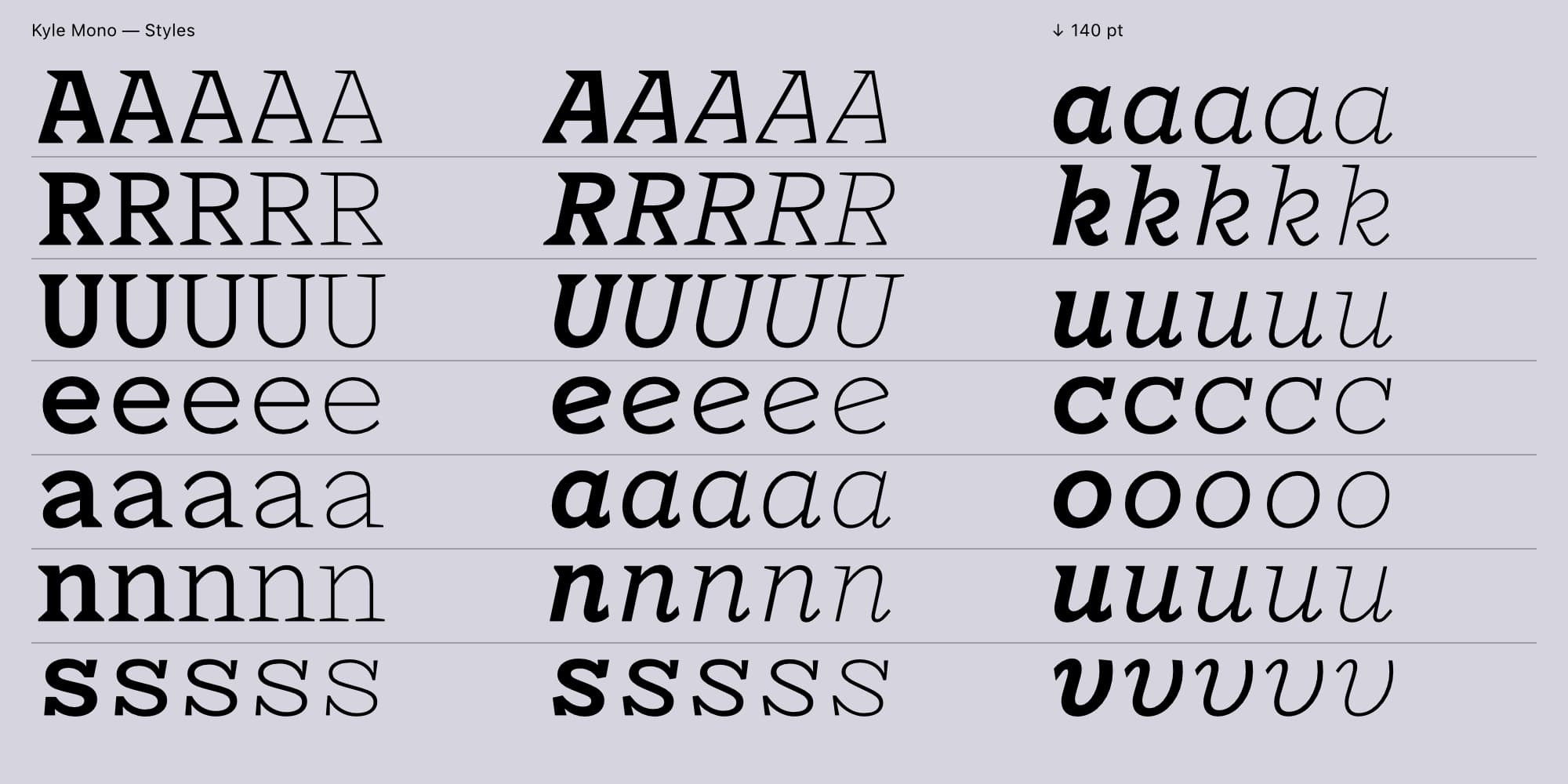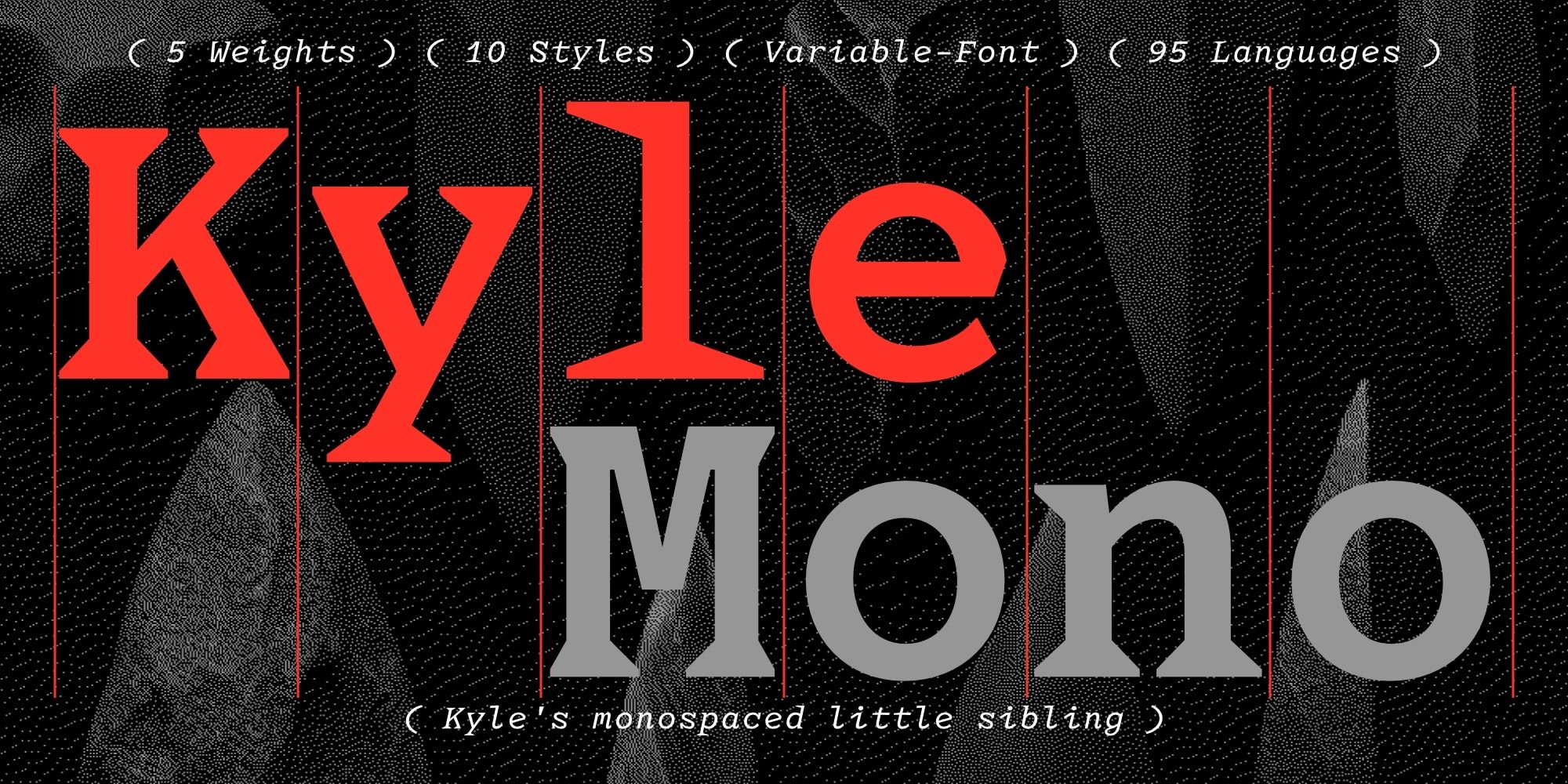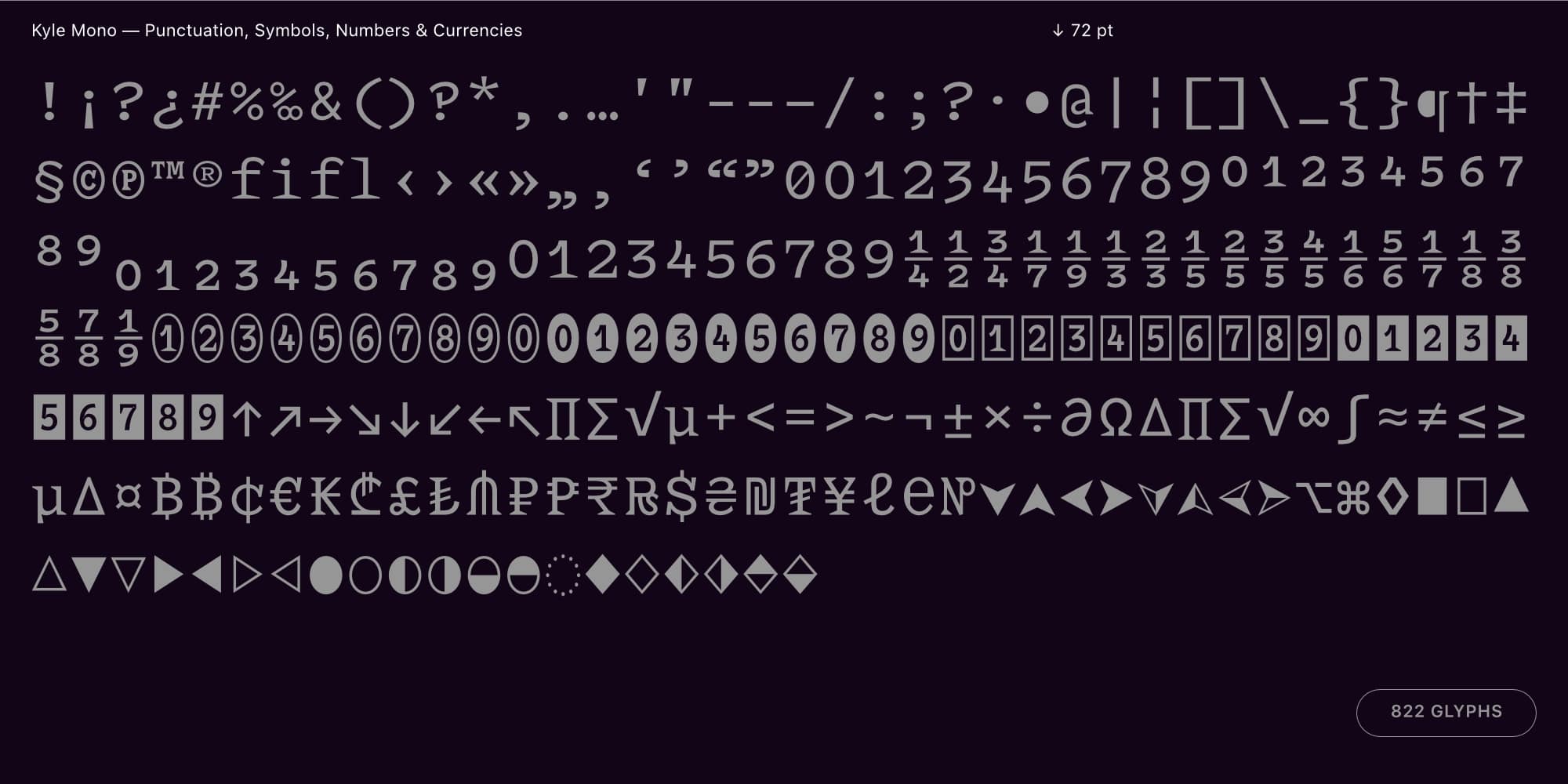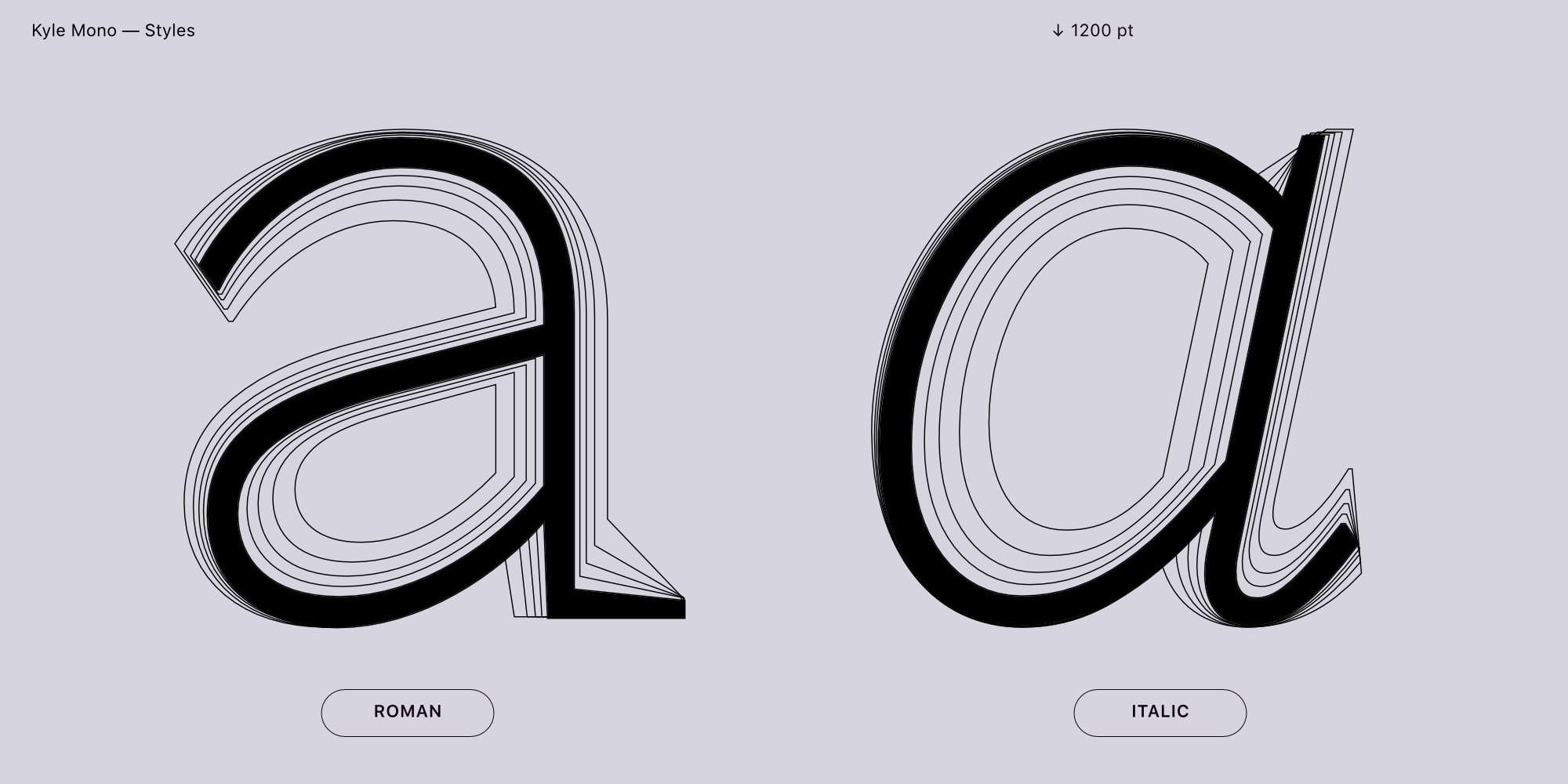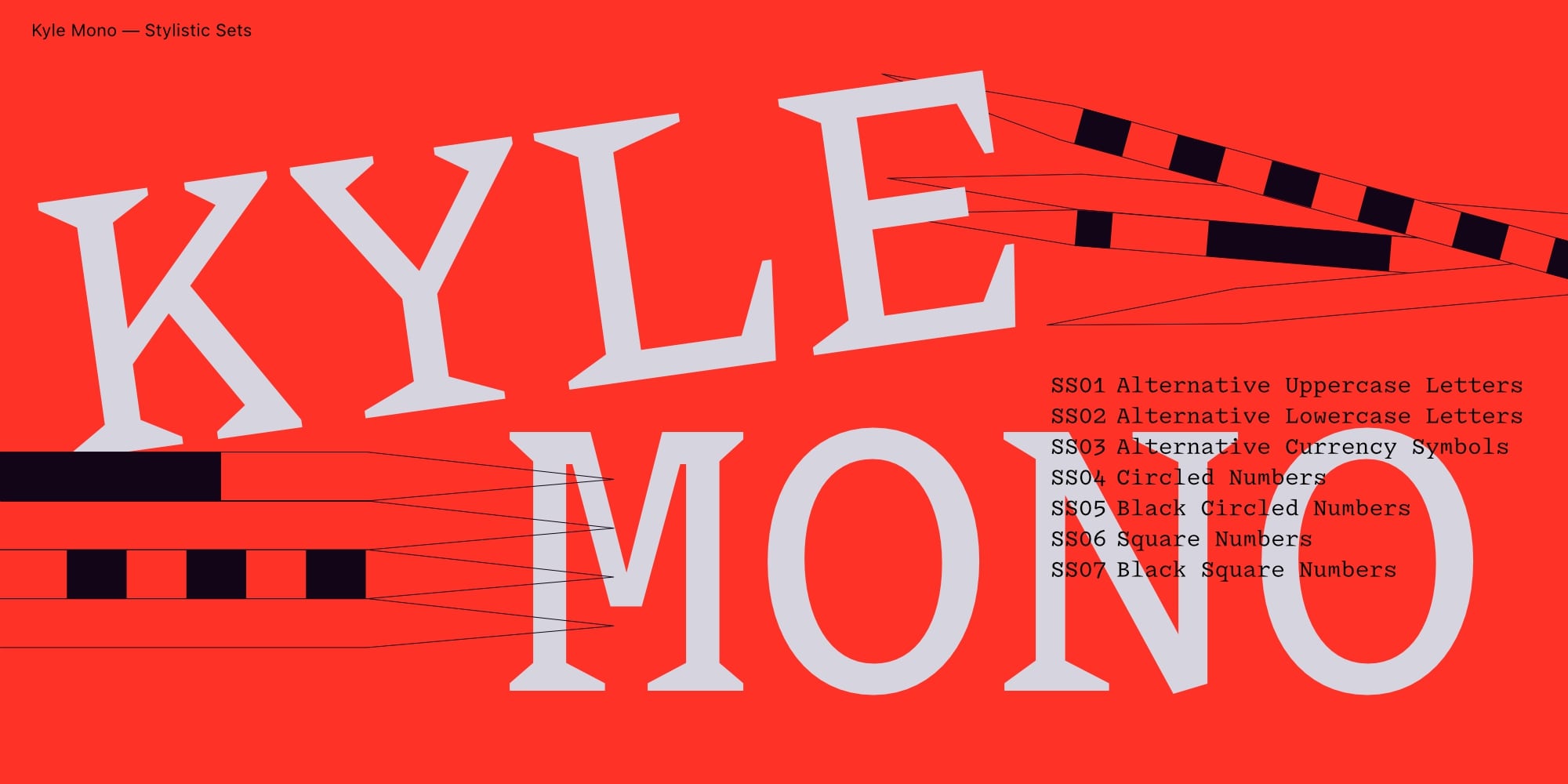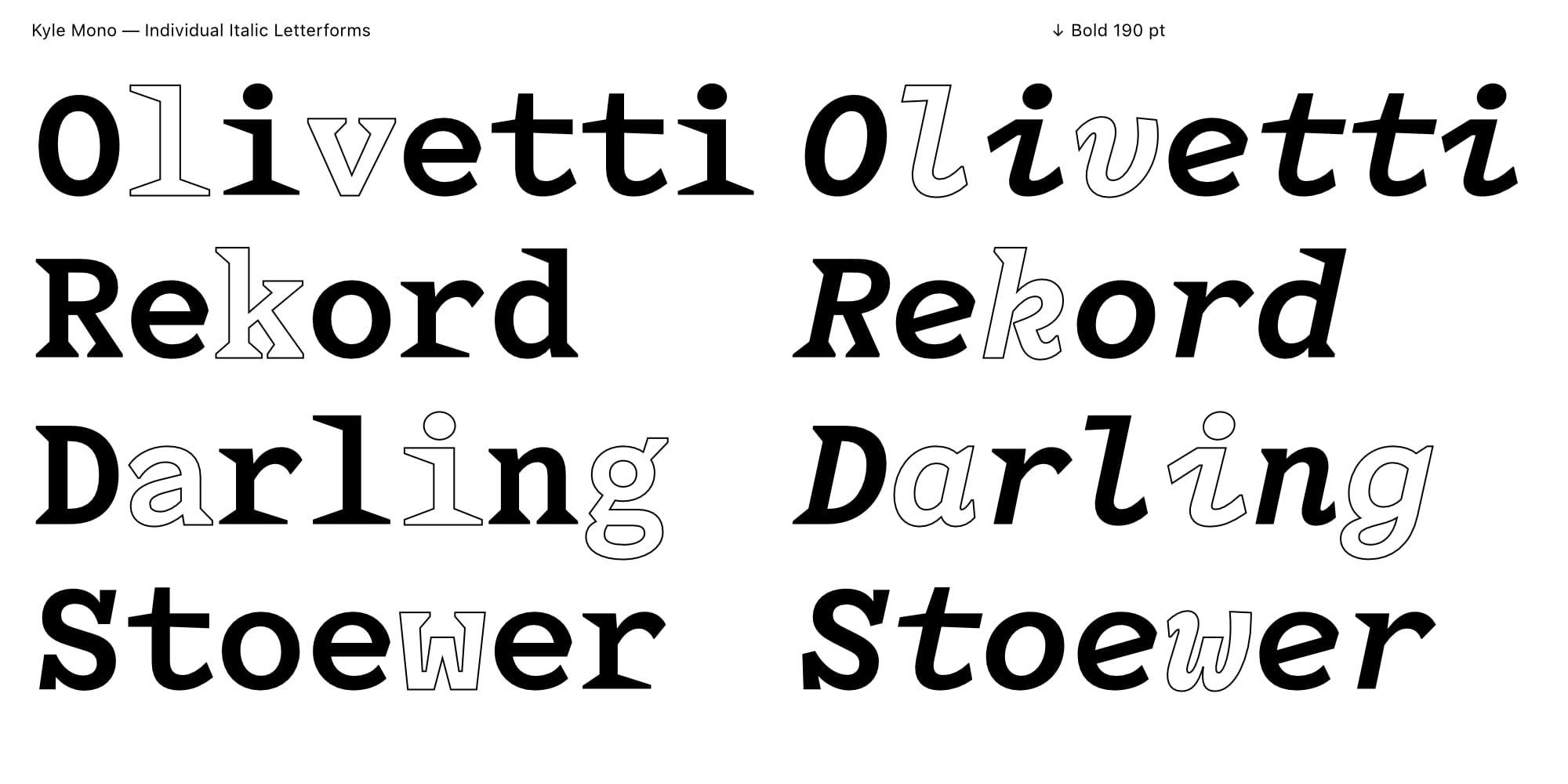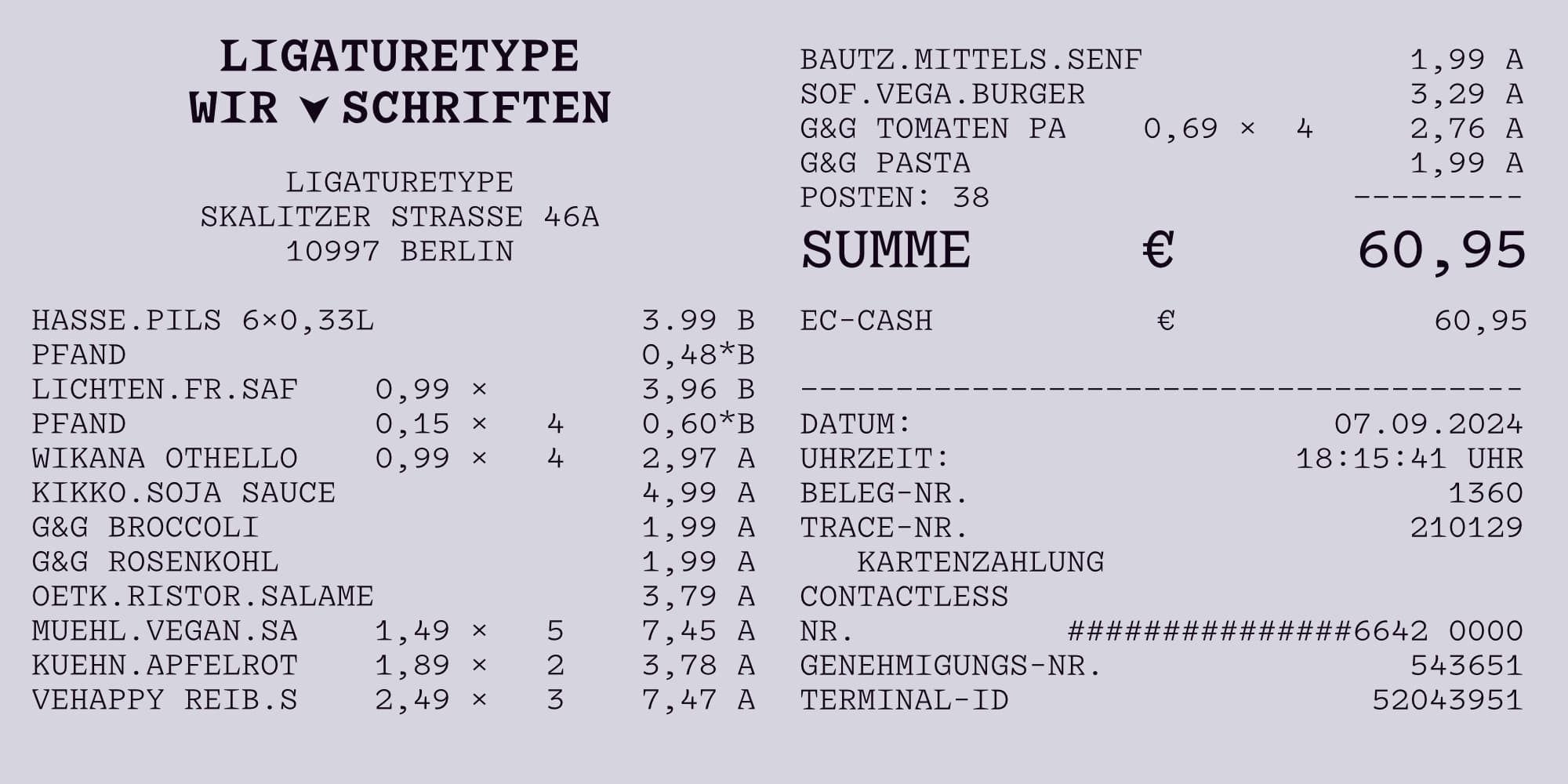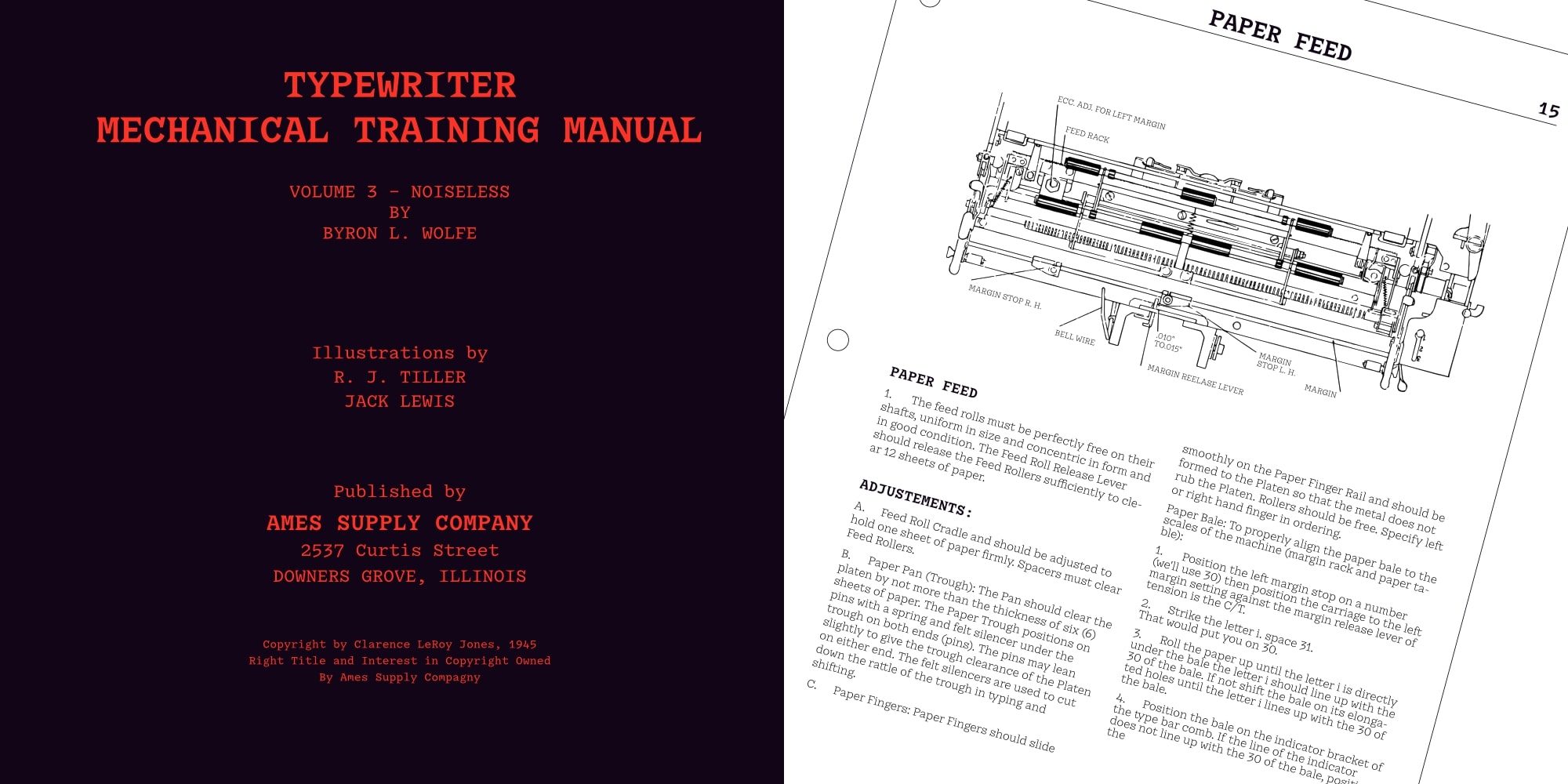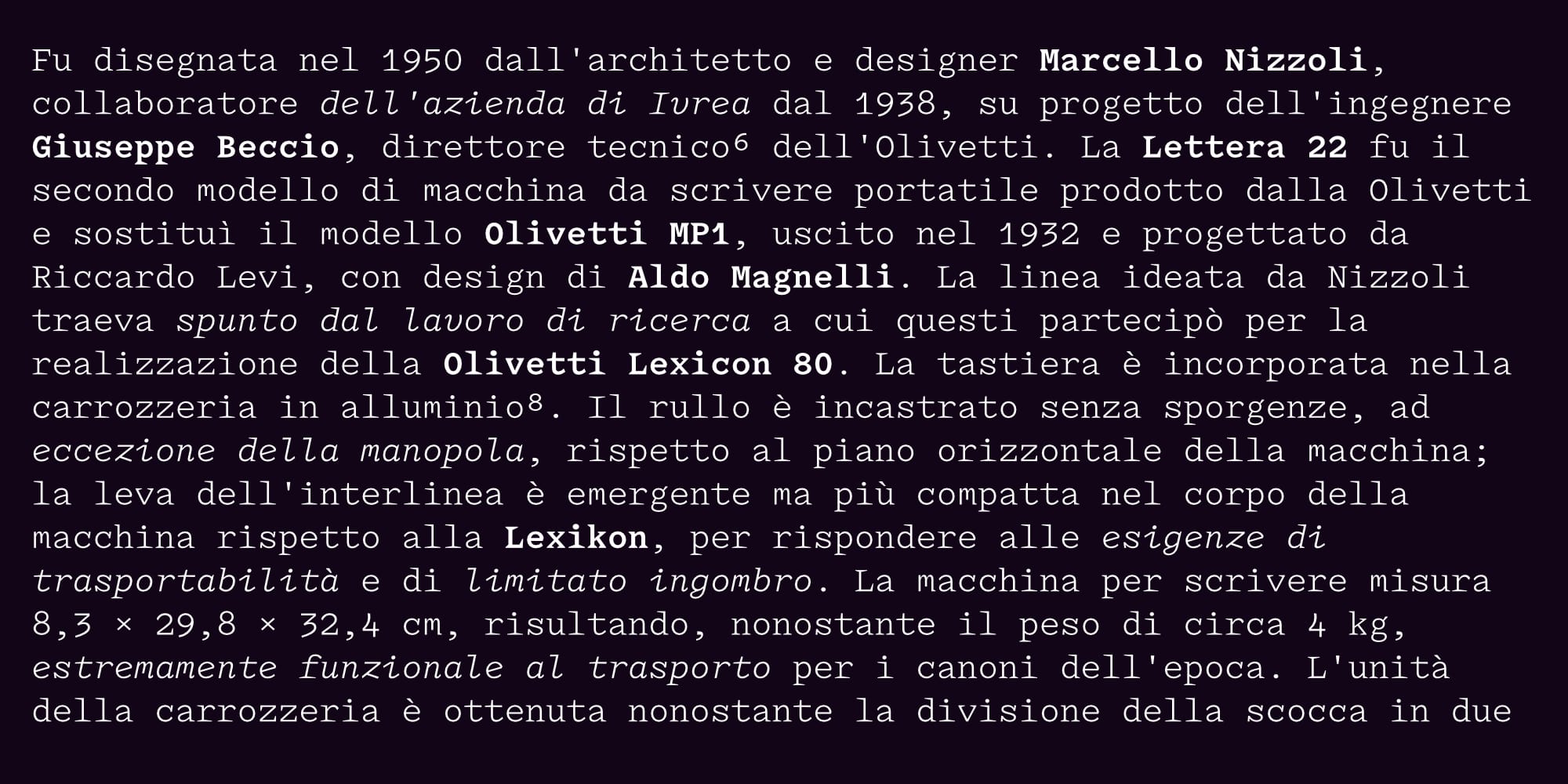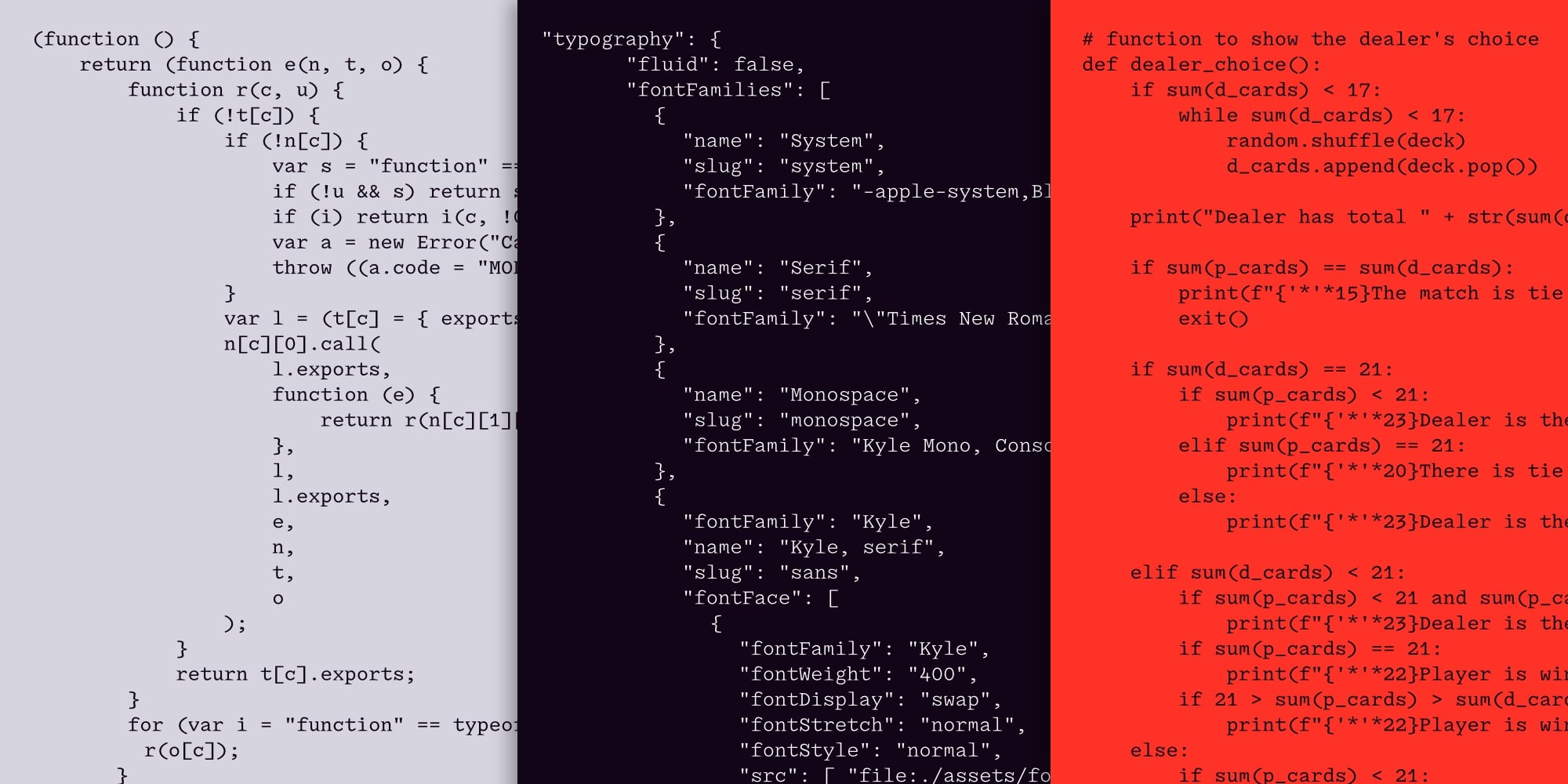
Kyle Mono
Kyle Mono is a non proportional, monoline serif font family. It is a sibling to the font family Kyle, that changes its character with increasing weight. Kyles and Kyle Monos glyphs have sharp, triangular serifs that gain momentum as the weight grows, becoming almost slab-like.
Both families have a quirky style - friendly, accessible and yet very individual, supporting legibility and expression.
Kyle Mono has a slightly less extensive character set than Kyle, but still it counts over 820 glyphs and supports Eastern European languages as well as Central- and Western European languages. It also contains a number of practical symbols, often adjusted to add interest by playing with the monospace rule.
On the practical side, Kyle-Mono is great for use in coding, flight arrival displays, comparing amino acids or writing dadaist poetry. On a more expressive level, it offers us its own specific, edgy design-flavour.